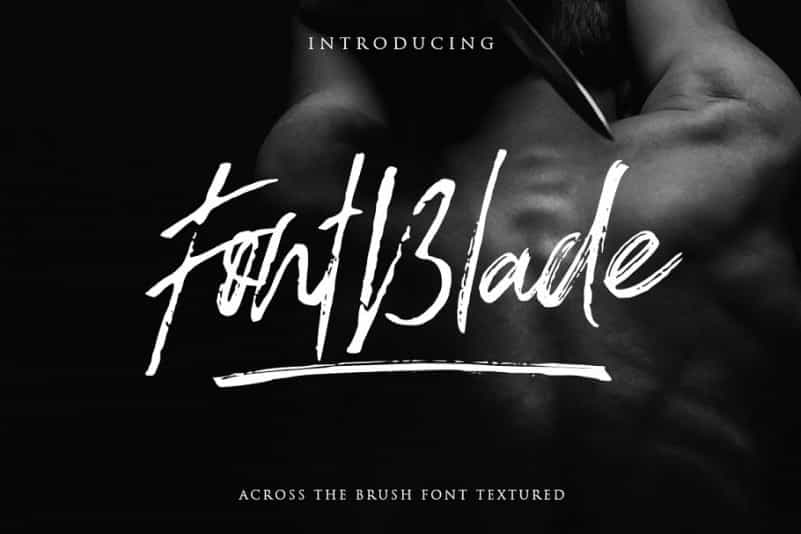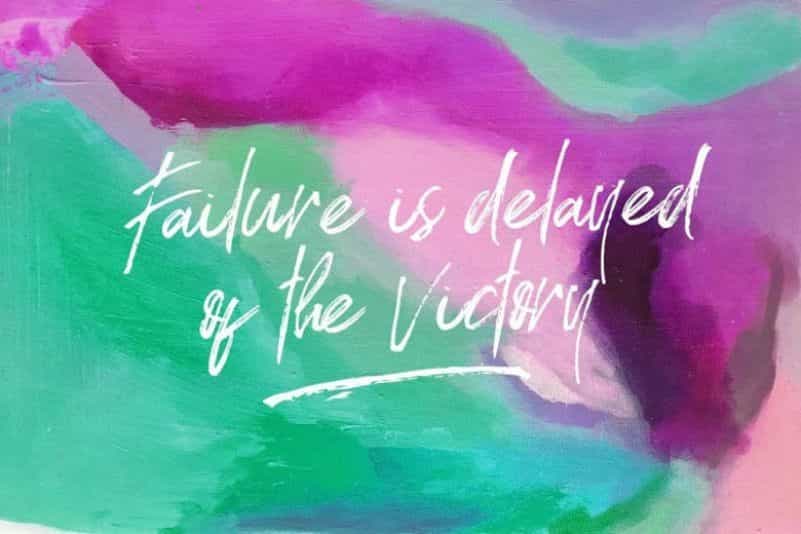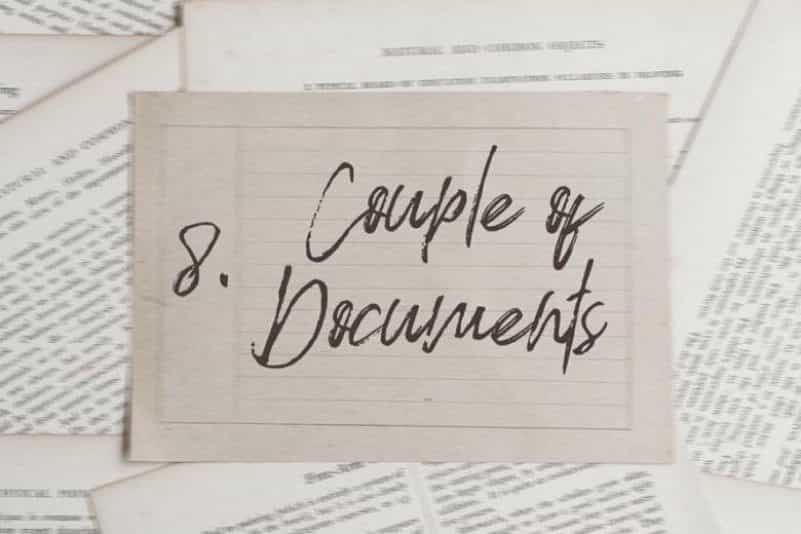
Here is the new across the brush font called “FontBlade Font“ which is a stylish script font and it can be used in both simply and classy designs. It is an ideal choice for fashion, label and other design projects. It is a design created and shared by Haksen.